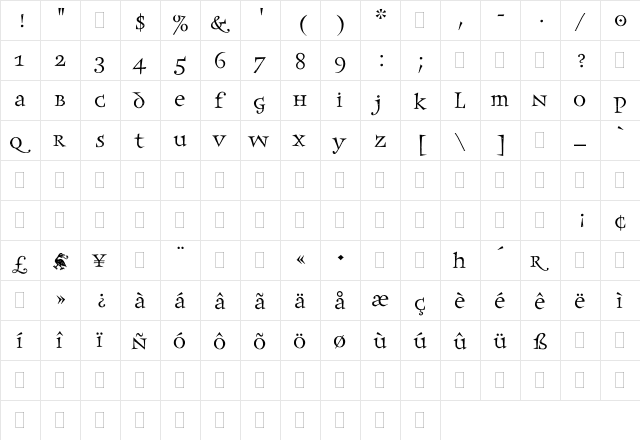
FrancesUncialPlain Regular
Design Context for FrancesUncialPlain Typeface
FrancesUncialPlain is a composed and adaptable typeface that performs quietly and consistently across a wide range of design contexts.